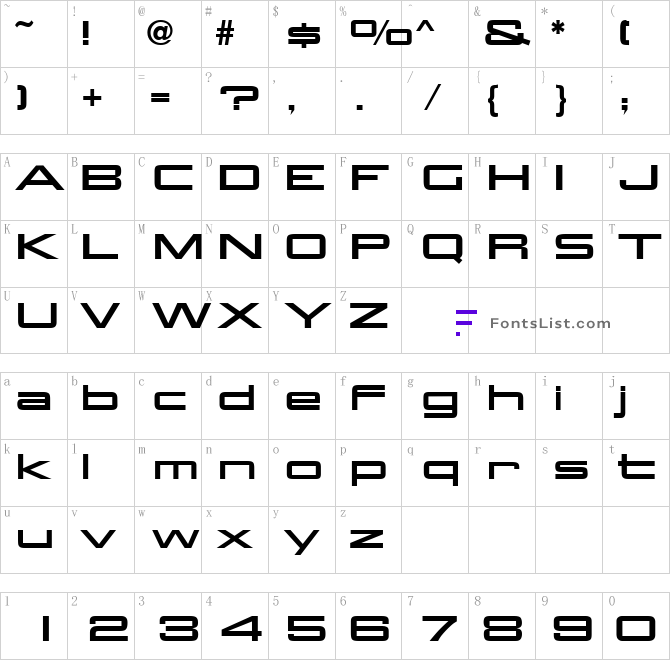
- Font Name:AggieURWTNor
AggieURWTNor.ttf is a very beautiful artistic font, AggieURWTNor.ttf is widely used in the design and printing of various books and pictures,AggieURWTNor.ttf has a strong visual impact,AggieURWTNor.ttf is a commonly used font in newspapers, magazines and books, and is used in posters, e-commerce Poster design, store design, logo design, font design and other fields.AggieURWTNor.